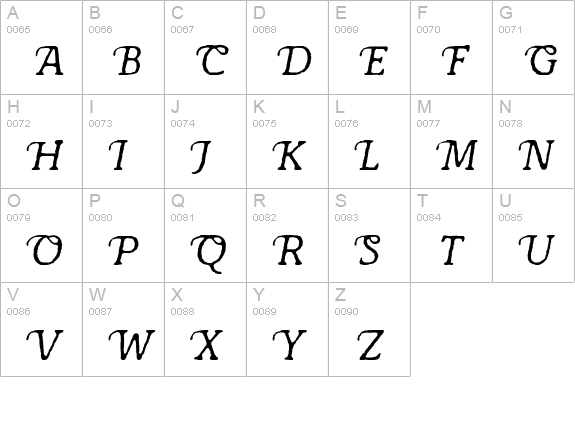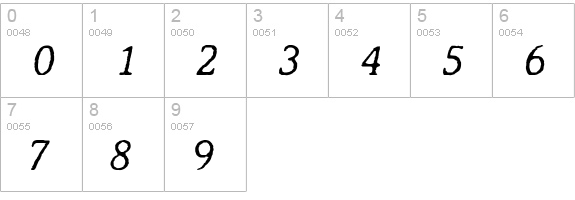
Antihistory Italic is a distinctive, italic variant in the Antihistory typeface family \xE2\x80\x94 well suited to design and typography projects.
Antihistory Italic font is a bold and stylish typeface that exudes sophistication and elegance. With its unique slanted design and intricate details, this font is perfect for adding a touch of modernity to any design project. Its sleek curves and sharp lines make it stand out from the crowd, giving your text a striking and memorable appearance. What sets Antihistory Italic font apart is that it is not only visually appealing, but it is also completely free to use. Whether you're working on a personal project or a professional one, you can easily download this font at FontsMarket.com without any cost. Add a touch of class and creativity to your designs with Antihistory Italic font and make a lasting impression on your audience. Download it now and unleash your creativity with this versatile and eye-catching typeface.